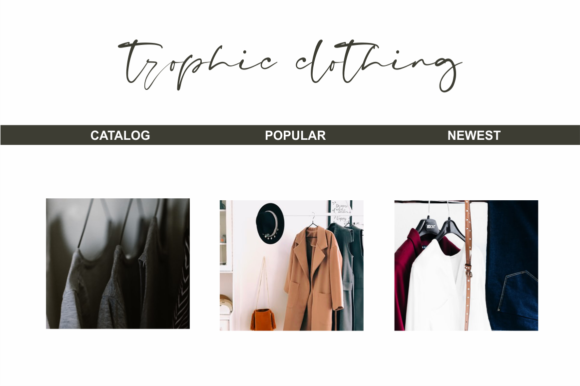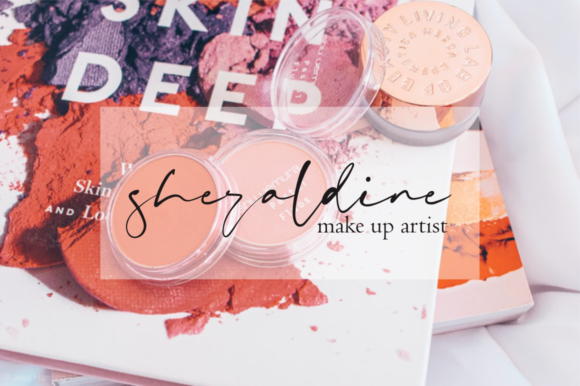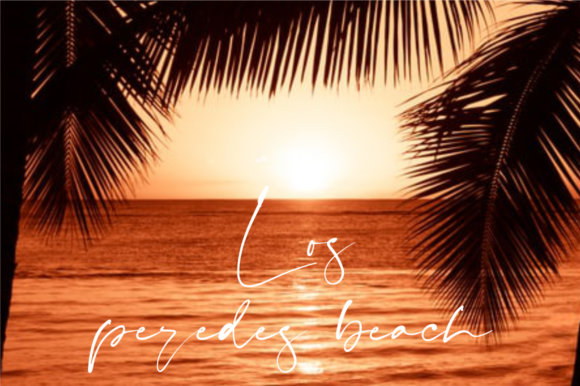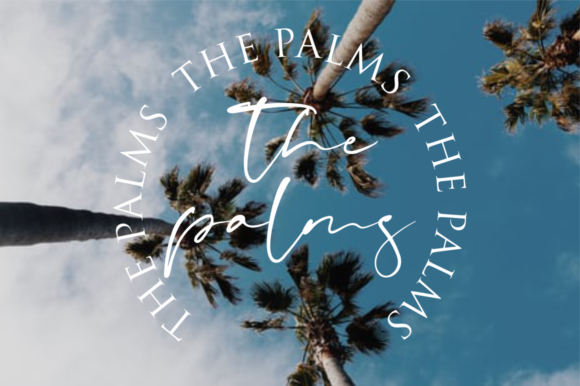
Persian Cotage Font
About Persian Cotage Font
Persian Cotage is a modern and fresh handwritten font that will easily add a personal touch to your next design project. Get inspired by its unique charm!